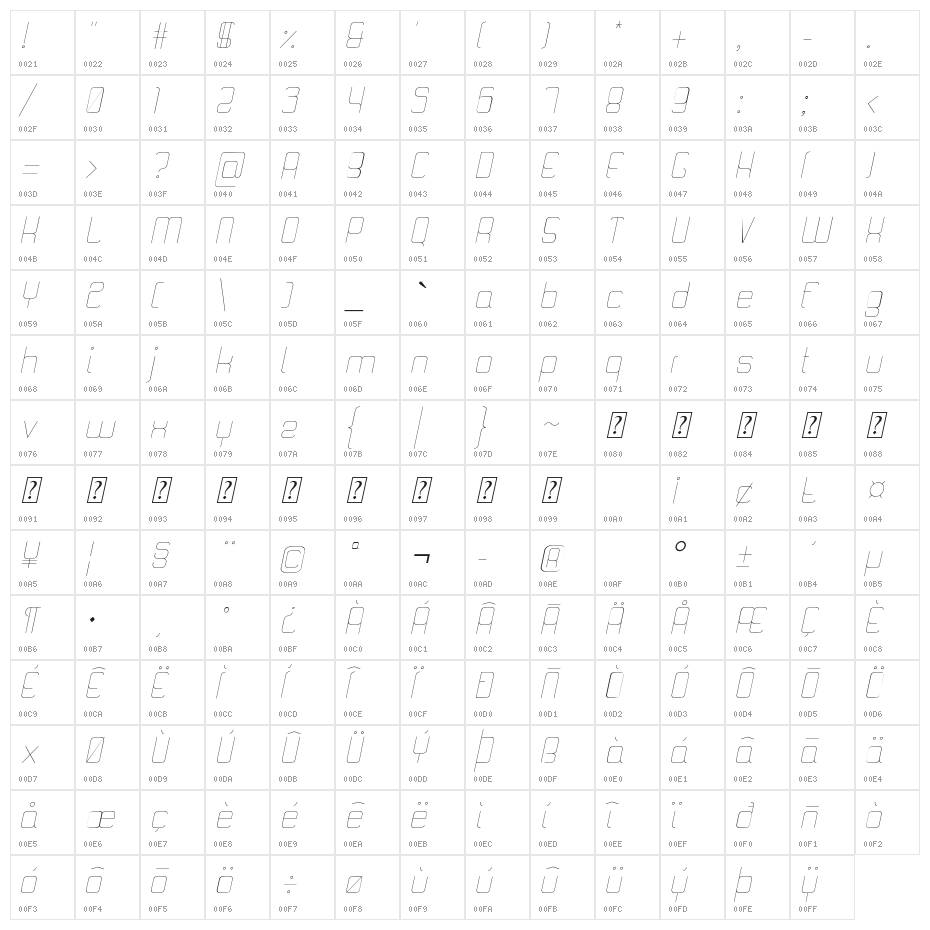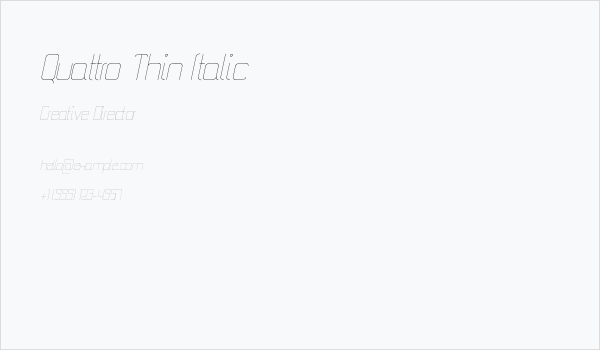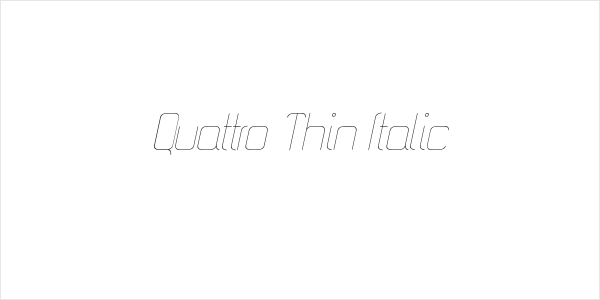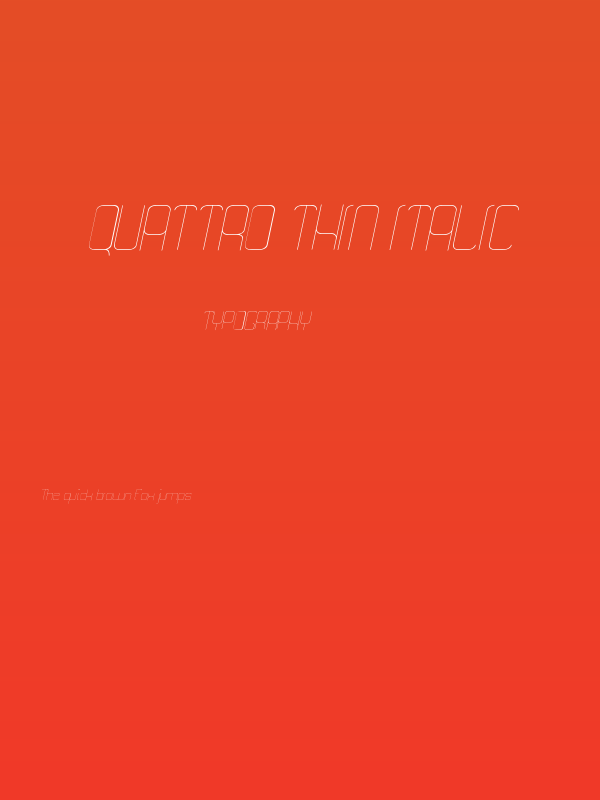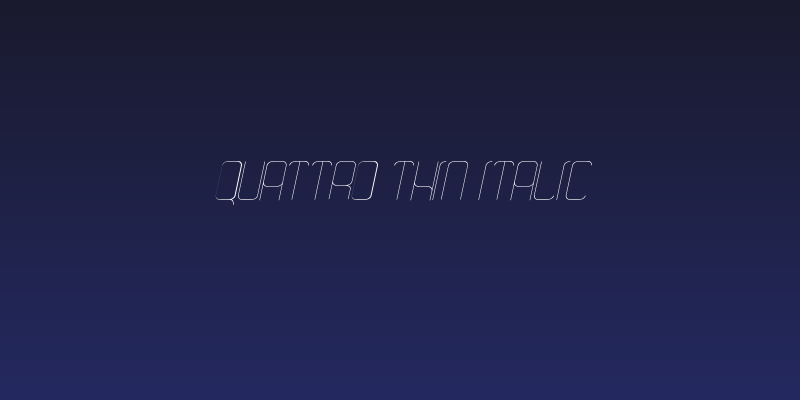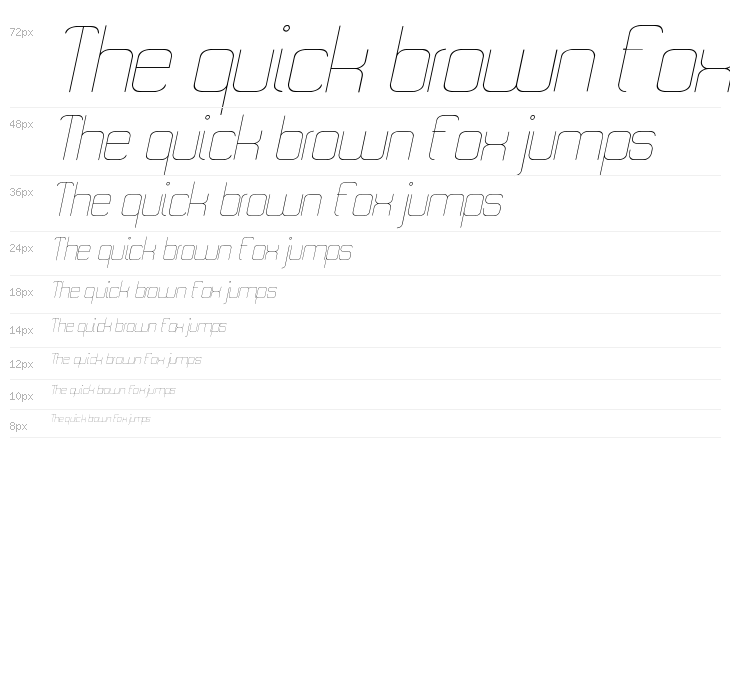
Quattro Thin Italic Font
Quattro Thin Italic Description
This font features a sleek, ultra-thin design with a modern and futuristic aesthetic. The characters are elongated and slightly slanted, giving an italicized appearance that adds a sense of motion and elegance. The strokes are consistent in their thinness, creating a uniform look across all characters. The font maintains a geometric structure with rounded edges, providing a soft yet sophisticated feel. Its minimalistic style makes it suitable for contemporary design projects where a clean and airy look is desired. The spacing between characters is generous, enhancing readability despite the thinness of the strokes.